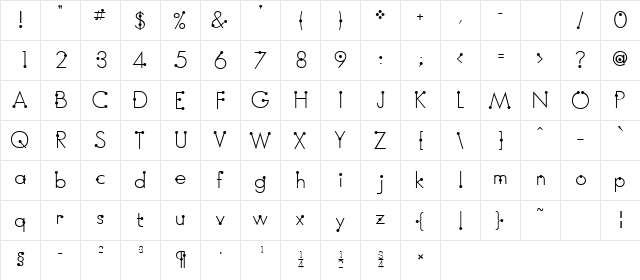
BoumBoum (Free version) Regular
Design Context for BoumBoum (Free version) Typeface
BoumBoum (Free version) offers clean, dependable letterforms without strong stylistic allegiance, making it a practical choice for designers who need flexibility.